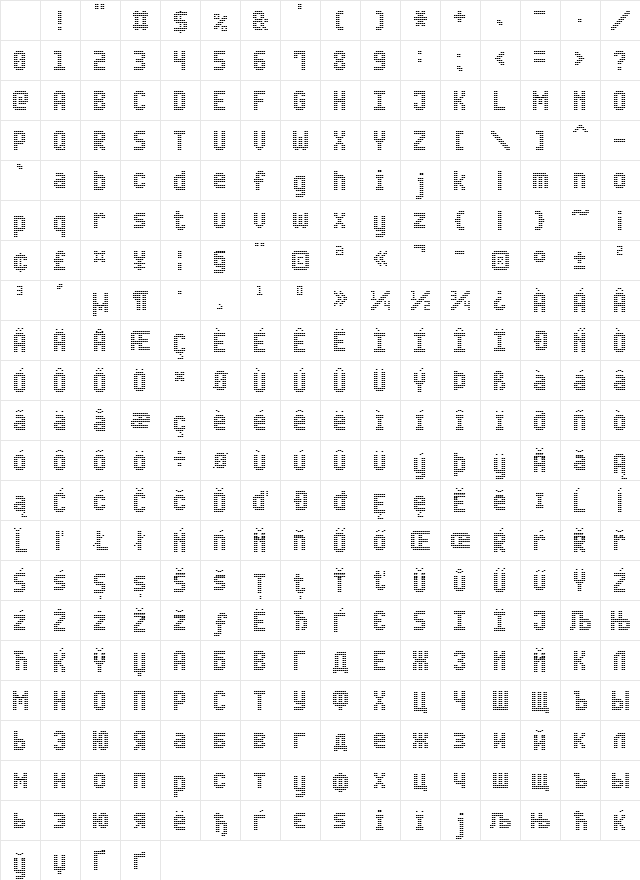
Complete Advanced LED Board-7 Regular glyph index. Displaying only characters natively supported by Advanced LED Board-7 Regular font.
Advanced LED Board-7 is a composed and adaptable typeface that performs quietly and consistently across a wide range of design contexts.